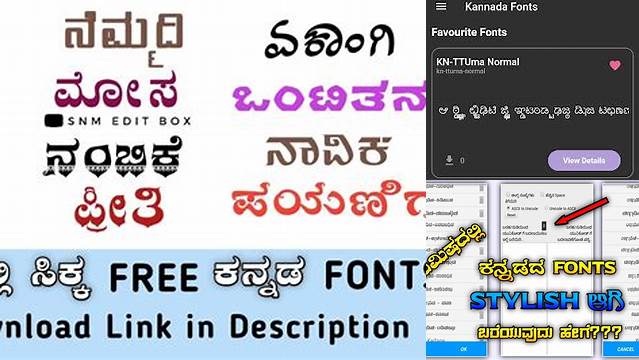
Kannada Fonts For CapCut: Enhance Your Videos!
Hey guys! Want to make your CapCut videos look super awesome with some cool Kannada fonts? You've come to the right place! Adding the right font can really make your videos pop and connect with your audience on a whole new level. Let’s dive into everything you need to know about using Kannada fonts in CapCut, from finding the best ones to making sure they look perfect in your videos. Get ready to take your video editing skills to the next level!
1. Why Use Kannada Fonts in CapCut?
So, why should you even bother with Kannada fonts in your CapCut projects? Well, using native fonts is a fantastic way to connect with a Kannada-speaking audience. Imagine creating content that truly resonates with people because it's in their language and style! It's all about making your videos more engaging and relatable. Plus, the right font can add a touch of authenticity and professionalism to your work. It shows you care about the details, and that can make a big difference in how people perceive your content. Think about it – a well-chosen font can be the difference between a video that gets watched and shared, and one that gets scrolled past. So, let's explore how to make the most of Kannada fonts in your CapCut creations!
2. Best Kannada Fonts for Video Editing
Okay, let's get to the good stuff: finding the best Kannada fonts for video editing! There are tons of options out there, but not all of them are created equal. You want fonts that are not only beautiful but also easy to read on screen. Some popular choices include Noto Sans Kannada, Tunga, and Kedage. These fonts are known for their clarity and style. When you’re picking a font, think about the vibe of your video. Is it a serious documentary or a fun vlog? The font should match the tone. Also, consider how the font looks in different sizes and against different backgrounds. Experiment a bit to see what works best for your project. Trust me, spending a little time to find the perfect font can make a huge difference in the final product. So, go ahead and explore – your ideal Kannada font is out there waiting to be discovered!
6. Using Kannada Fonts in Text Overlays
Let's talk about using Kannada fonts in text overlays – this is where things get really interesting! Text overlays are a fantastic way to add context, humor, or important information to your videos. When you're using Kannada fonts for overlays, think about readability. You want the text to be clear and easy to read, even when it’s on screen for a short amount of time. Choose fonts that are bold and have good contrast against your video background. Also, consider the size and placement of your text. You don’t want it to block important parts of the video, but you do want it to be noticeable. Experiment with different styles and effects, like shadows or outlines, to make your text pop. Remember, the goal is to enhance your video, not distract from it. With the right Kannada font and a little creativity, you can create text overlays that add a professional and engaging touch to your CapCut projects.
7. Creating Engaging Titles with Kannada Fonts
Titles are super important for grabbing your viewers’ attention, and Kannada fonts can help you create titles that really stand out! A well-designed title can make people want to click and watch your video, so it’s worth spending some time on this. When you're choosing a Kannada font for your titles, go for something that’s both eye-catching and easy to read. Bold fonts often work well, but you can also experiment with more decorative styles if they fit the vibe of your video. Think about the overall design of your title – the size, color, and placement of the text all matter. You might want to add some effects, like shadows or gradients, to make your title pop even more. Just remember to keep it consistent with the rest of your video’s style. A great title in a Kannada font can be the key to getting more views and engaging your audience right from the start!
8. Using Kannada Fonts for Subtitles
Subtitles are a game-changer when it comes to making your videos accessible to a wider audience, and using Kannada fonts for subtitles is a fantastic way to connect with Kannada speakers. When you're creating subtitles, clarity is key. You want a font that’s super easy to read, even for people who are watching on smaller screens. Stick to simple, clean Kannada fonts that don’t have too many decorative elements. Also, think about the size and color of your subtitles. You want them to be large enough to read comfortably, but not so large that they block the video. White or light-colored text with a black outline often works well, as it provides good contrast against most backgrounds. Make sure your subtitles are timed correctly and that they accurately reflect what’s being said in the video. Well-done subtitles in a Kannada font can make your content more inclusive and engaging for a whole new audience!
9. Pairing Kannada Fonts with Other Fonts
Sometimes, using just one font can feel a bit… well, boring. That’s where font pairing comes in! Combining Kannada fonts with other fonts can add a lot of visual interest to your videos. The key is to find fonts that complement each other without clashing. A good rule of thumb is to pair a decorative Kannada font with a simpler, more readable font. For example, you might use a bold, stylized Kannada font for your title and a clean sans-serif font for the body text. Think about the overall style of your video and choose fonts that fit the vibe. Experiment with different combinations until you find something that looks great. Just remember, less is often more. You don’t want to use too many fonts in one video, as that can make it look cluttered and confusing. With a little practice, you’ll become a pro at pairing Kannada fonts and creating visually appealing content!
10. Best Practices for Using Fonts in CapCut
Alright, let’s talk about some best practices for using fonts in CapCut. These tips will help you make sure your videos look professional and polished. First off, readability is key. Always choose fonts that are easy to read on screen, even for people watching on smaller devices. Think about the size, color, and contrast of your text. You want it to stand out without being distracting. Consistency is also important. Stick to a limited number of fonts (usually two or three) throughout your video to create a cohesive look. Consider the tone of your video when choosing fonts. A serious documentary might call for a different font style than a fun vlog. And finally, don’t be afraid to experiment! Try out different fonts and styles to see what works best for your project. By following these best practices, you’ll be well on your way to creating videos that look amazing and engage your audience.
11. Troubleshooting Font Issues in CapCut
Okay, let's be real – sometimes things don't go as planned, and you might run into font issues in CapCut. Don't panic! Most problems have pretty simple solutions. One common issue is that your installed Kannada fonts aren't showing up in CapCut. This can often be fixed by restarting the app or even your device. If that doesn't work, double-check that the font is properly installed on your system. Another problem you might encounter is text that looks blurry or distorted. This can happen if the font file is corrupted or if CapCut is having trouble rendering it. Try using a different font or reinstalling the problematic one. And if you're still having trouble, the CapCut community forums can be a great resource for finding help and solutions. Remember, everyone runs into tech issues sometimes. The key is to stay patient and troubleshoot step by step. You'll get those Kannada fonts working in no time!
12. Making Your Text Stand Out
Want to make your text really stand out in your CapCut videos? There are tons of cool tricks you can use! First off, think about contrast. Make sure your text color stands out against the background. Light text on a dark background or vice versa often works well. You can also use shadows, outlines, or glows to add depth and dimension to your text. Experiment with different font sizes and styles to create visual interest. Animation can also be a game-changer. CapCut has lots of built-in text animation effects that can make your text pop and grab attention. Just be careful not to overdo it – you want your text to be eye-catching, but not distracting. And don't forget about placement. Think about where your text is positioned on the screen and how it interacts with the rest of the video. With a little creativity, you can make your text stand out and really enhance your message!
13. Font Licensing and Usage Rights
Let's talk about something super important: font licensing and usage rights. This might sound a bit dry, but it’s crucial to understand the rules so you don’t run into any legal issues. When you download a Kannada font, it usually comes with a license that specifies how you can use it. Some fonts are free for personal use but require a commercial license if you’re using them for business purposes. Others are completely free for any use, while some are only available for purchase. It’s always a good idea to read the license agreement carefully before using a font in your videos. Pay attention to things like whether you can use the font for commercial projects, whether you can modify it, and whether you need to give credit to the font designer. If you’re unsure about anything, it’s better to err on the side of caution and contact the font creator or distributor. Understanding font licensing will save you a lot of headaches down the road!
14. The Importance of Readability
We’ve mentioned it before, but it’s worth repeating: readability is key when it comes to choosing fonts for your videos. No matter how beautiful a Kannada font is, if it’s hard to read, it’s not going to do your video any favors. Think about your audience and the devices they’ll be watching on. Will they be able to easily read the text on a small screen? Choose fonts that are clear and have good contrast against the background. Avoid overly decorative fonts or fonts that are too thin, as these can be difficult to read, especially in fast-paced videos. Consider the size and spacing of your text as well. Make sure the letters aren’t too close together or too small. Test your video on different devices and ask for feedback from others to make sure your text is easily readable. Prioritizing readability will ensure that your message comes across loud and clear!
15. Font Size and Placement
Font size and placement are crucial elements in making sure your text looks great in your CapCut videos. You want your text to be noticeable and easy to read, but not so large that it overwhelms the video. Think about the size of the screen people will be watching on – text that looks good on a computer might be too small on a mobile device. Experiment with different font sizes to find the sweet spot. Placement is just as important. Avoid blocking key visuals in your video with your text. Consider the composition of your shots and place your text in a way that complements the visuals. You might want to use different placements for different shots to keep things interesting. Also, think about how long your text is on screen. If it’s only there for a short time, make sure it’s large enough to be read quickly. Paying attention to font size and placement can make a big difference in how your text is perceived!
16. Animating Kannada Text in CapCut
Animation can add a whole new level of dynamism to your text in CapCut, and it’s super easy to animate Kannada text! CapCut has a bunch of built-in animation effects that you can use to make your text pop, slide, fade, or do all sorts of cool things. To animate your Kannada text, just select the text layer and go to the animation options. You’ll find a variety of presets to choose from, like “fade in,” “slide up,” or “typewriter.” Experiment with different animations to see what works best for your video. You can also customize the speed and duration of the animation to get the perfect look. Just be careful not to overdo it – too much animation can be distracting. Use animation to highlight key points or add a bit of flair, but make sure it complements the overall style of your video. With a little practice, you’ll be a pro at animating Kannada text in CapCut!
17. Color and Contrast for Kannada Fonts
When it comes to Kannada fonts, color and contrast are your best friends! The right color combination can make your text pop and grab attention, while poor contrast can make it virtually invisible. Think about the background of your video when choosing text colors. If you have a dark background, light-colored text will usually work best. Conversely, if your background is light, dark text will provide the best contrast. White text with a black outline is a classic combination that works well in many situations. You can also use color to convey emotion or match the tone of your video. For example, bright colors might be great for a fun, upbeat video, while more muted colors might be better for a serious documentary. Experiment with different color combinations and see what works best for your project. Just remember, the goal is to make your Kannada fonts readable and visually appealing!
18. Using Effects with Kannada Text
Want to add some extra pizzazz to your Kannada text in CapCut? Effects are the way to go! CapCut has a variety of effects that you can use to make your text look even more amazing. Shadows, outlines, glows, and gradients can all add depth and dimension to your text. Experiment with different effects to see what you like. A subtle shadow can make your text pop off the screen, while a bold outline can make it stand out even more. Gradients can add a cool, modern look, and glows can give your text a soft, ethereal feel. Just be careful not to overdo it – too many effects can make your text look cluttered and distracting. Use effects sparingly and choose ones that complement the overall style of your video. With the right effects, you can make your Kannada text truly shine!
19. Font Styles: Bold, Italic, and Underline
Font styles like bold, italic, and underline can be powerful tools for emphasizing certain words or phrases in your Kannada text. Use them wisely to draw attention to key points and add visual interest to your videos. Bold text is great for making words stand out, especially in titles or headings. Italic text can be used to add emphasis or to indicate a quote or reference. Underline is less commonly used in video editing, but it can be effective for highlighting specific words or links. When using these styles, consistency is key. Don’t overuse them, or your text will look cluttered and confusing. Choose one or two styles and use them consistently throughout your video. For example, you might use bold for titles and italic for quotes. With a little practice, you’ll be able to use font styles to enhance your Kannada text and make your videos more engaging!
20. Kerning and Leading Adjustment
Okay, let’s get a little technical and talk about kerning and leading adjustment. These are the little details that can make a big difference in how your Kannada text looks in CapCut. Kerning refers to the spacing between individual letters, while leading (pronounced “ledding”) refers to the spacing between lines of text. If your text looks cramped or too spread out, adjusting the kerning and leading can help. Most video editing software, including CapCut, has options for adjusting these settings. Experiment with different values until your text looks balanced and easy to read. Keep in mind that different fonts may require different kerning and leading adjustments. What looks good for one font might not look good for another. Taking the time to fine-tune these settings can really elevate the look of your Kannada text and make your videos more professional!
21. Using Kannada Fonts for Branding
Your font choices can be a crucial part of your branding, so using Kannada fonts strategically can help you create a consistent and recognizable identity. Think about the overall style and message of your brand. What kind of fonts would best represent your brand’s personality? If you have a fun, playful brand, you might choose a more whimsical Kannada font. If your brand is more serious and professional, a clean, classic font might be a better fit. Once you’ve chosen a Kannada font for your branding, use it consistently across all your videos and other marketing materials. This will help people recognize your brand and build a strong association with your style. You can also use different Kannada fonts for different parts of your videos, such as titles and subtitles, but make sure they complement each other and fit your overall brand aesthetic. With a little thought, your font choices can become a powerful tool for building your brand identity!
22. Kannada Calligraphy Fonts for CapCut
If you're looking to add a touch of elegance and sophistication to your videos, Kannada calligraphy fonts are a fantastic option for CapCut. These fonts mimic the beautiful strokes of traditional Kannada calligraphy, adding a unique and artistic flair to your text. They're perfect for creating stunning titles, invitations, or any text that needs a touch of class. When using Kannada calligraphy fonts, keep in mind that readability is still important. Choose fonts that are ornate but not overly complex, so your text is easy to read on screen. Consider using these fonts sparingly, as they can be quite decorative. Pairing them with a simpler, more readable font for the body text can create a nice balance. With the right touch, Kannada calligraphy fonts can elevate your videos and make them truly stand out!
23. Modern Kannada Fonts for Video Editing
For a sleek and contemporary look, modern Kannada fonts are an excellent choice for video editing. These fonts often feature clean lines, minimalist designs, and a fresh, up-to-date feel. They're perfect for videos that have a modern aesthetic, such as tech reviews, lifestyle vlogs, or corporate presentations. When choosing modern Kannada fonts, think about the overall tone of your video. Do you want something bold and eye-catching, or something more subtle and understated? Sans-serif fonts are often a good choice for a modern look, as they tend to be clean and easy to read. Experiment with different weights and styles to find the perfect fit for your project. Modern Kannada fonts can help you create videos that look stylish, professional, and cutting-edge!
24. Traditional Kannada Fonts in CapCut
If you want to evoke a sense of heritage and authenticity in your videos, traditional Kannada fonts are a great way to go in CapCut. These fonts are inspired by the classic styles of Kannada script, giving your text a timeless and culturally rich feel. They're perfect for videos that showcase Kannada culture, history, or literature, or for any project where you want to add a touch of tradition. When using traditional Kannada fonts, readability is especially important. Some of these fonts can be quite intricate, so choose ones that are clear and easy to read on screen. You might also want to consider using them in combination with more modern fonts to create a balanced and visually appealing look. Traditional Kannada fonts can help you connect with your audience on a deeper level and add a unique cultural dimension to your videos!
25. Free Kannada Fonts for CapCut Users
Good news for budget-conscious creators: there are plenty of free Kannada fonts available for CapCut users! You don't have to spend a fortune to get access to high-quality fonts for your videos. Websites like Google Fonts, FontSpace, and DaFont offer a wide variety of free Kannada fonts that you can download and use in your projects. When downloading free fonts, it's important to check the licensing agreement to make sure you can use them for your intended purpose. Some fonts are free for personal use only, while others can be used for commercial projects as well. Always give credit to the font designer if required by the license. With a little searching, you can find some fantastic free Kannada fonts to enhance your CapCut videos without breaking the bank!
26. Premium Kannada Fonts for Professional Videos
For those who want the very best in typography, premium Kannada fonts can be a worthwhile investment for professional videos. These fonts are often created by experienced type designers and offer a level of quality and sophistication that free fonts may not match. Premium Kannada fonts typically come with a broader range of styles and weights, as well as advanced features like kerning pairs and alternate characters. They're perfect for projects where you want to make a strong visual statement and stand out from the crowd. Websites like MyFonts and Adobe Fonts offer a wide selection of premium Kannada fonts for purchase. While they may come with a higher price tag, premium fonts can help you elevate your videos and give them a truly professional look!
27. Combining Kannada and English Fonts
If you're creating videos that mix Kannada and English text, combining Kannada and English fonts effectively is crucial. You want to choose fonts that complement each other and create a cohesive visual style. A good approach is to pair a Kannada font with a similar English font in terms of style and weight. For example, if you're using a bold Kannada font, you might pair it with a bold English font as well. Sans-serif fonts often work well together, as they have a clean and modern look. Experiment with different combinations until you find something that looks balanced and harmonious. Keep in mind that readability is still the priority, so make sure both the Kannada and English fonts are clear and easy to read on screen. With the right font pairing, you can create videos that seamlessly blend Kannada and English text!
28. Font Hierarchy in Video Projects
Font hierarchy is a key concept in video design, referring to the way you use different fonts to create a visual structure and guide the viewer's eye. In any video project, you'll typically have a hierarchy of text elements, such as titles, subtitles, body text, and captions. Each of these elements should have a distinct font style that reflects its importance and function. For example, you might use a bold Kannada font for titles, a slightly smaller font for subtitles, and a clean, readable font for the body text. The goal is to create a clear visual hierarchy that makes your text easy to understand and navigate. Think about the size, weight, and style of your fonts, and use them to create a visual flow that enhances your message. Mastering font hierarchy can help you create videos that are both visually appealing and highly effective!
29. Accessibility Considerations for Kannada Fonts
When choosing Kannada fonts for your videos, it's essential to consider accessibility. You want to make sure your text is readable and understandable for as many viewers as possible, including those with visual impairments. Choose fonts that are clear, simple, and have good contrast against the background. Avoid overly decorative fonts or fonts that are too thin, as these can be difficult to read. Use appropriate font sizes and spacing, and make sure your text is positioned in a way that doesn't block important visuals. If you're using subtitles, consider adding a background or outline to the text to improve readability. By considering accessibility, you can create videos that are inclusive and engaging for everyone!
30. Future Trends in Kannada Typography for Video
Finally, let's take a peek into the future trends in Kannada typography for video! As technology evolves and design aesthetics change, we can expect to see some exciting developments in the way Kannada fonts are used in video projects. One trend is the increasing use of variable fonts, which allow for greater flexibility and customization. We may also see more innovative font designs that blend traditional Kannada styles with modern influences. The rise of virtual and augmented reality could also lead to new ways of using typography in immersive video experiences. Whatever the future holds, it's clear that Kannada fonts will continue to play a vital role in video creation, helping to connect with audiences and tell compelling stories. Stay tuned for the next chapter in Kannada typography!